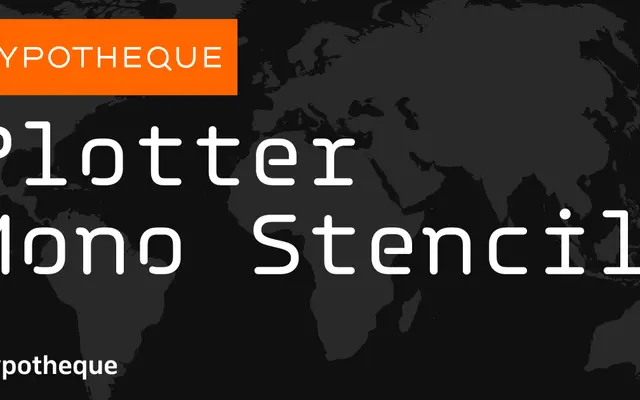
Plotter Mono Stencil
Typotheque
Plotter Mono Stencil specimen from Typotheque
A stencil monospaced typeface from Typotheque, part of an extended Plotter system spanning regular, stencil, mono and display subfamilies.
Part of the Plotter system from Typotheque, Plotter Mono Stencil combines monospaced construction with stencil cuts across four weights from Light to Bold. The broader family extends into straight, stencil, mono and display variants, with the display subfamily offering layerable colour fonts via separate Layer A through D cuts. City-named styles including Amsterdam, Bengaluru, Copenhagen and Damascus suggest localised or script-specific variants within the system.
A monospaced stencil typeface within a broader system that includes display, regular, and stencil variants. The mono construction and stencil cuts place it firmly in the technical/monospaced category with decorative stencil character.